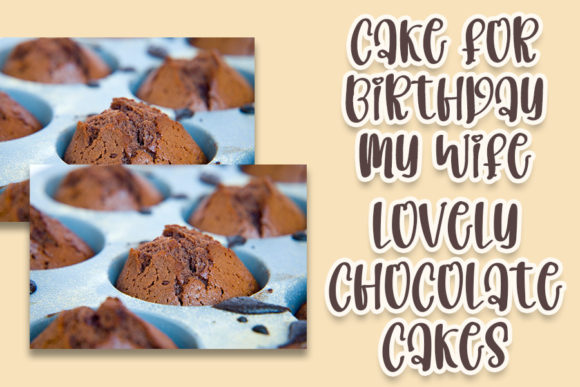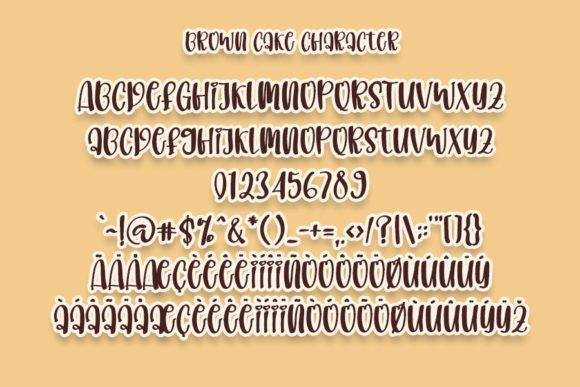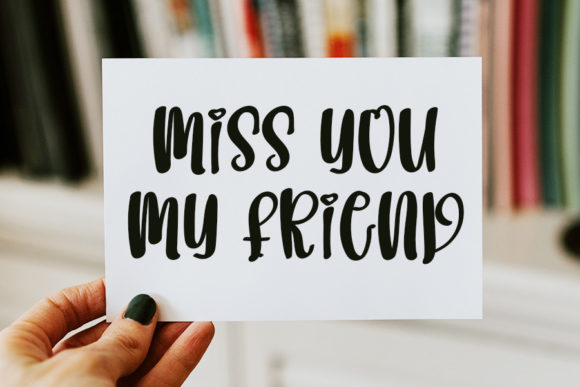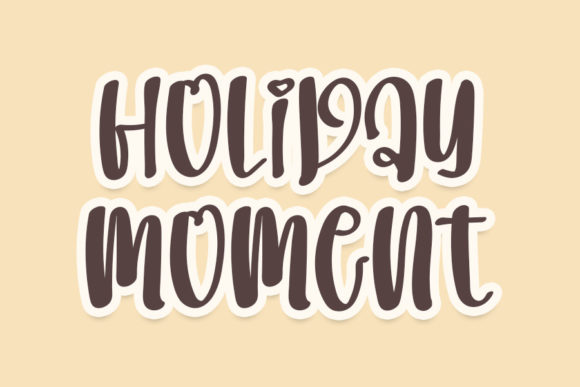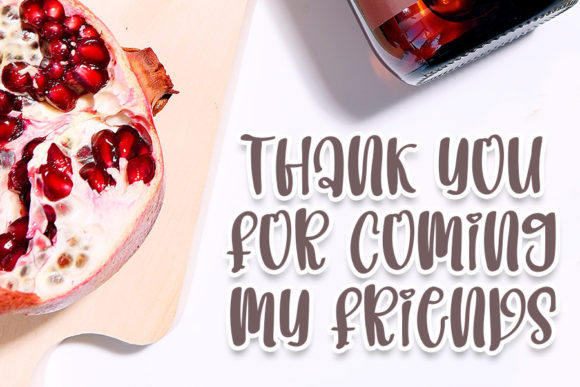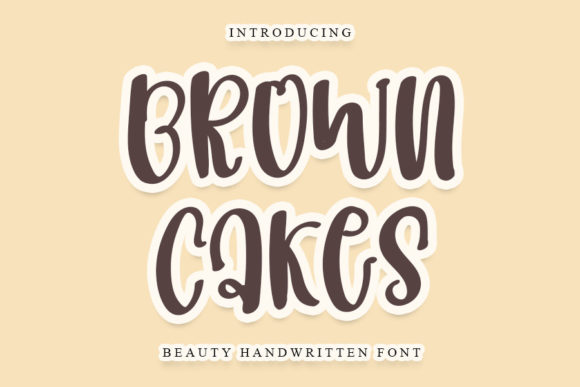
The Ultimate Guide to Brown Cakes Font: A Playful and Smart-Looking Handwritten Font
I’ll never forget the time I was working on a branding project for a trendy bakery, and I just couldn’t find the perfect font to capture their playful yet sophisticated vibe. That was until I stumbled upon Brown Cakes Font. It was love at first sight! ✨ The unique, hand-crafted letters seemed to dance on the page, and I knew I had found the perfect fit. In this article, I’ll share my experience with Brown Cakes Font, its features, and how to make the most of it in your designs.
A Personal Review of Brown Cakes Font
- ✨ Unique and Beautiful Touch: Every letter in Brown Cakes Font has a distinct character, making it perfect for creating eye-catching logos, branding, and quotes.
- ✅ Playful yet Sophisticated: This font strikes the perfect balance between playfulness and sophistication, making it suitable for a wide range of design projects.
- 💫 Highly Versatile: Brown Cakes Font can be used for various design applications, from logos and branding to social media graphics and quotes.
While Brown Cakes Font is an amazing font, there are a few things to keep in mind: 🤔
- ⚠️ Limited Use in Formal Designs: Due to its playful nature, Brown Cakes Font may not be the best choice for formal designs, such as corporate reports or academic papers.
- ⚠️ Requires Attention to Kerning: As with any handwritten font, kerning can be a bit tricky. Make sure to adjust the kerning to ensure optimal readability.
The Backstory of Brown Cakes Font
The story behind Brown Cakes Font is one of passion and creativity. Imagine a designer who loves baking and wants to create a font that’s as sweet as their favorite treats. They experiment with different letterforms, shapes, and styles until they create a font that’s both playful and sophisticated. That’s the story behind Brown Cakes Font – a font that’s sure to make your designs come alive!
Q: What is the best use for Brown Cakes Font?
A: Brown Cakes Font is perfect for creating eye-catching logos, branding, and quotes. Its playful yet sophisticated vibe makes it suitable for a wide range of design projects.